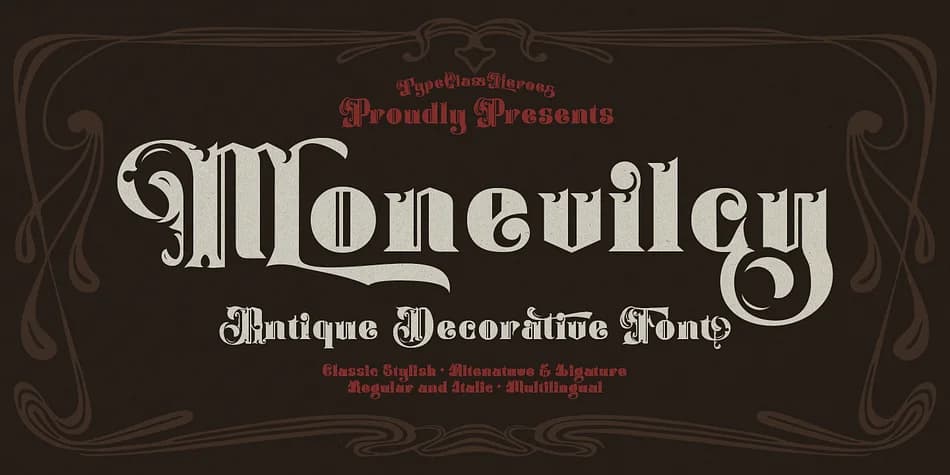
Monevilcy by TypeClassHeroes is an antique decorative typeface built on bold geometry and dramatic contrast. The sharp angles and ornamental flourishes give it that weighty, authoritative character designers reach for when they want a typeface with genuine presence and attitude. Every letterform reads as solid and commanding, perfectly suited to visual work that refuses to whisper or fade quietly into the background.
This typeface excels in craft brewery logos where the high-contrast boldness speaks directly to brand voice and creative vision. Speakeasy-style menu headers feel equally at home, as do vintage apothecary labels and tattoo flash collections designed for the discerning maker. Antique shop signage works beautifully here too, especially when you need letterforms that hold their own on aged surfaces or stand confidently beside distressed imagery and textures. The typeface ships with OTF and TTF files alongside WOFF and WOFF2 web formats, making deployment across print and digital channels straightforward and efficient. Alternates and ligatures give you tools to add genuine depth to your typography work, while international glyph coverage means you can work across multiple languages without scrambling for workarounds.
Monevilcy Font is a decorative font that shines as a display or heading face. Pair it with a clean sans-serif or serif font for body text β the contrast creates a clear hierarchy while the two styles stay balanced and easy to read.